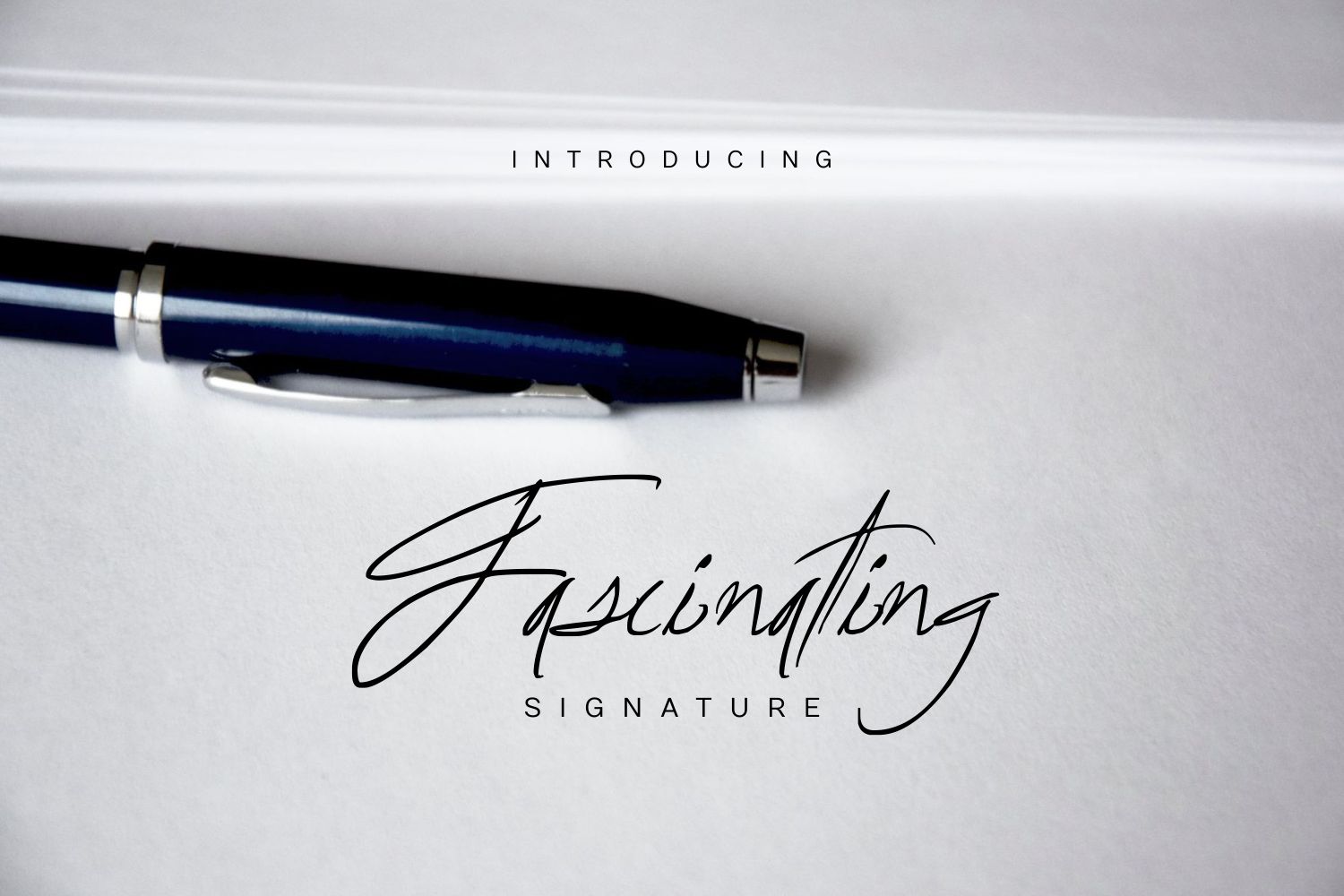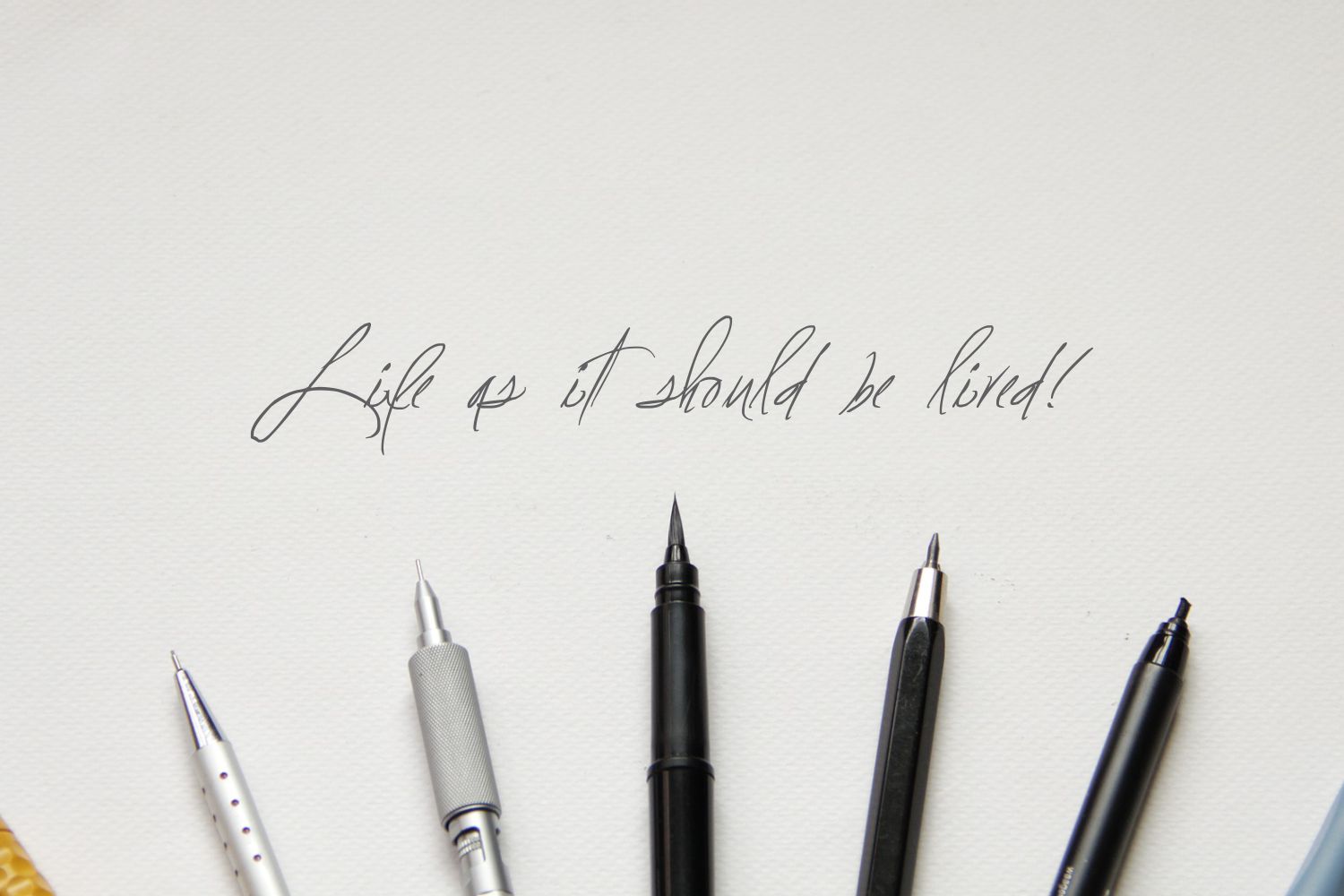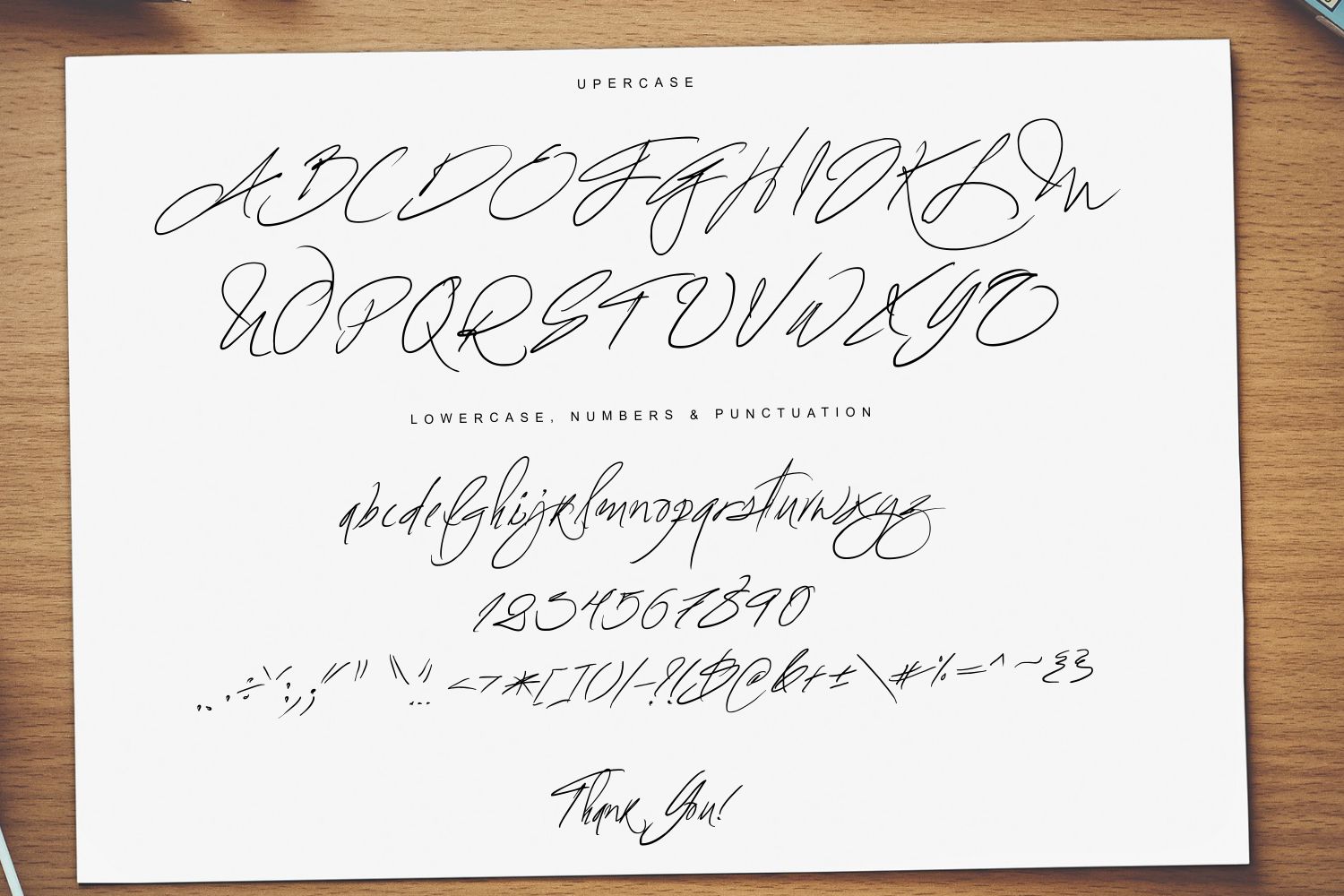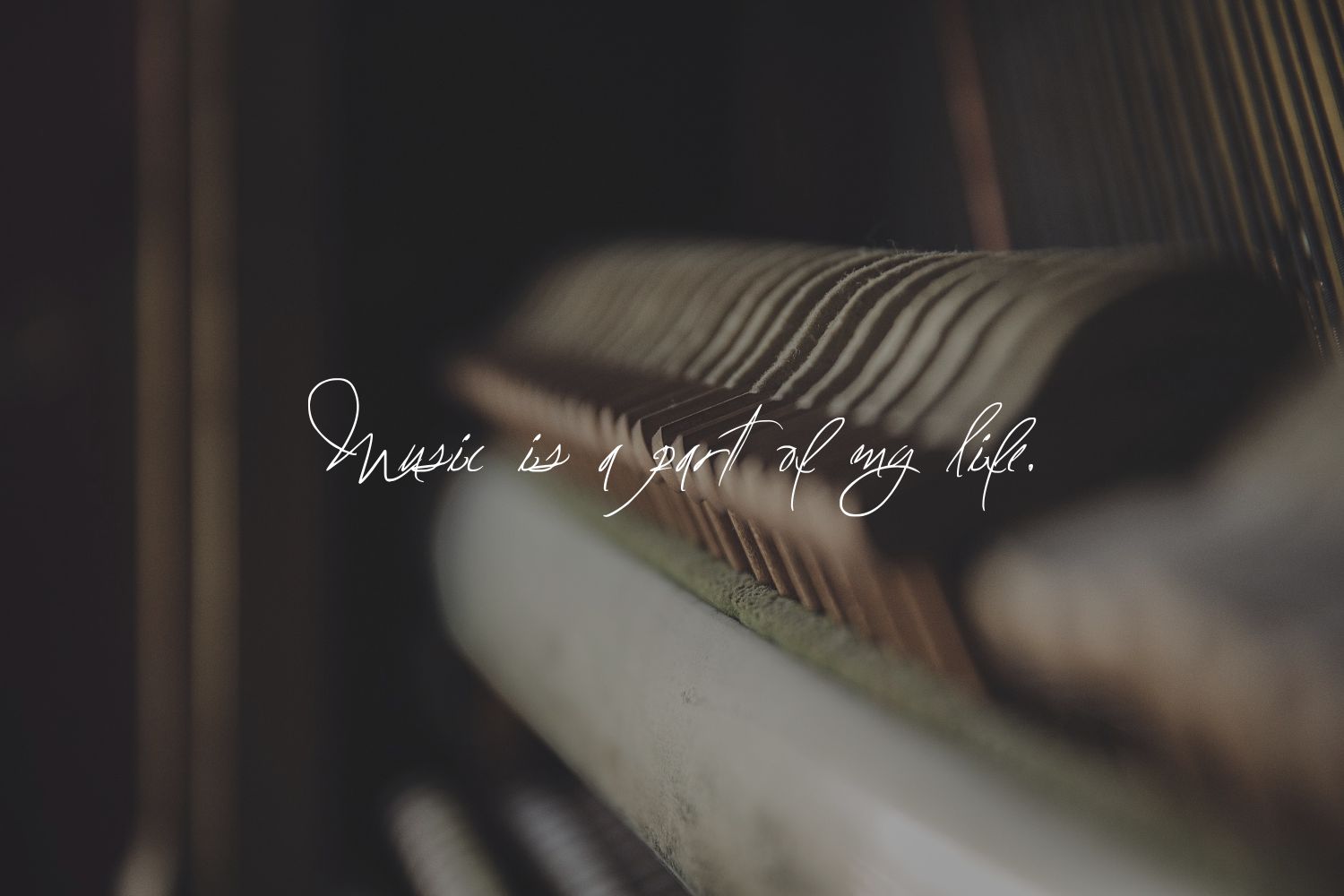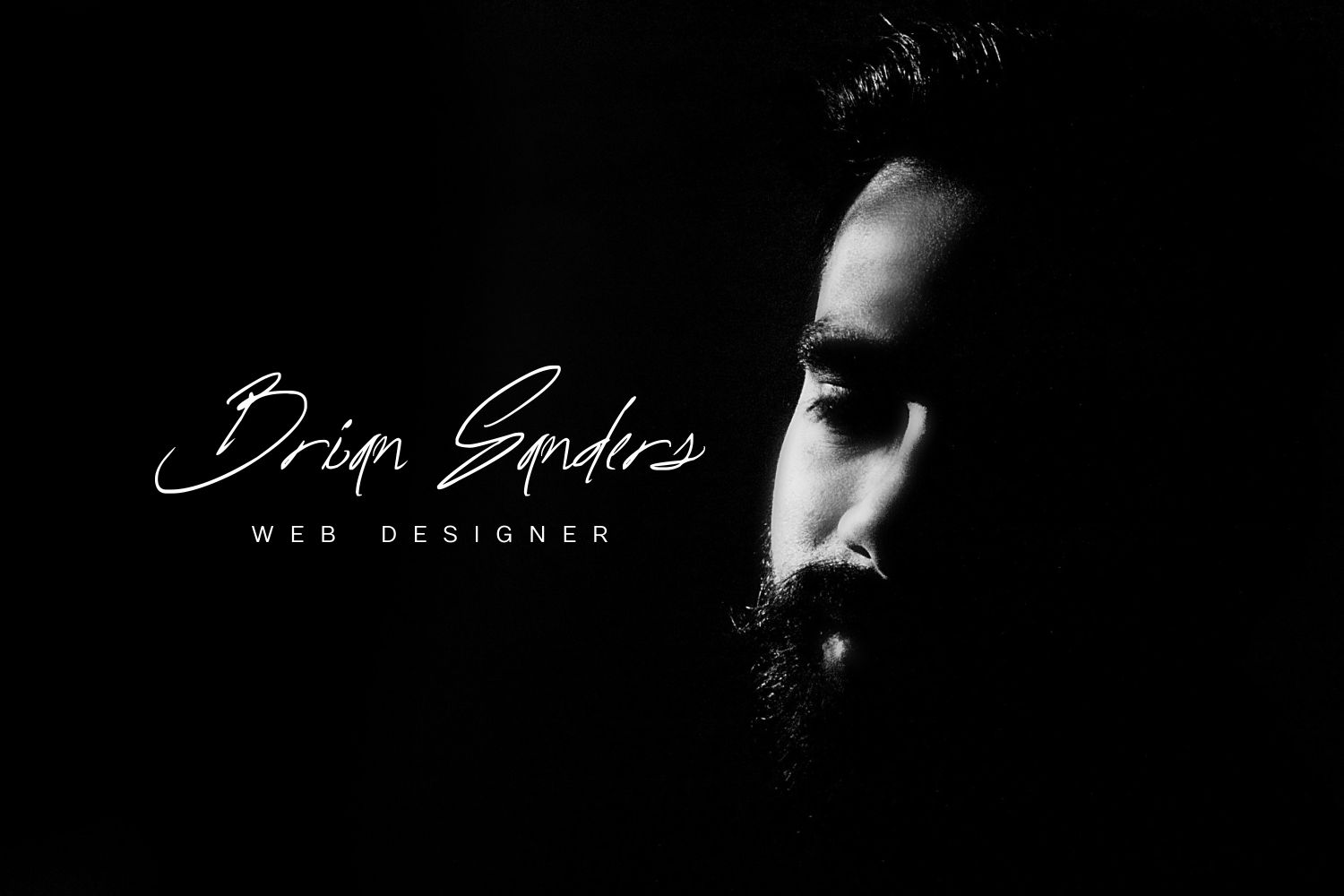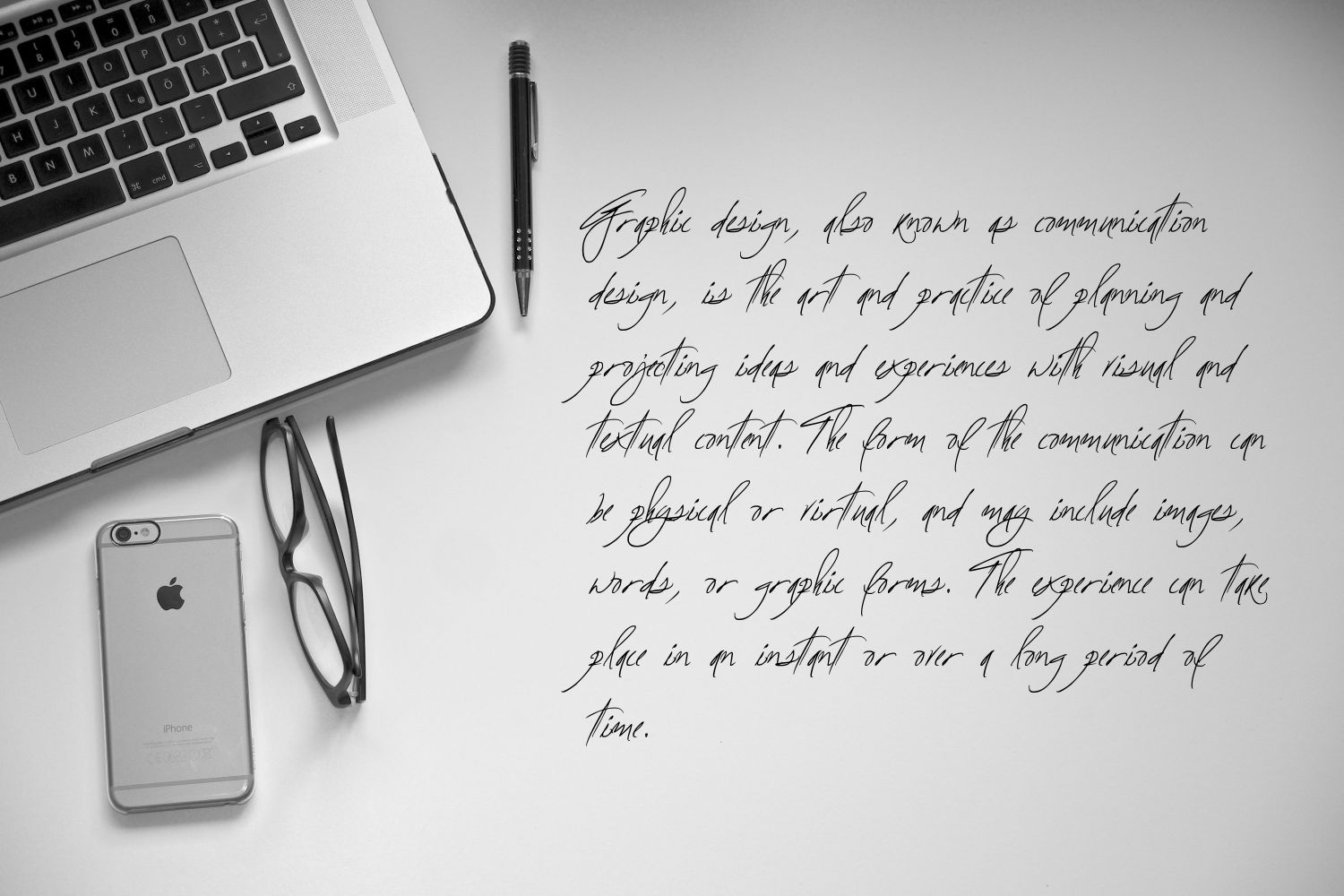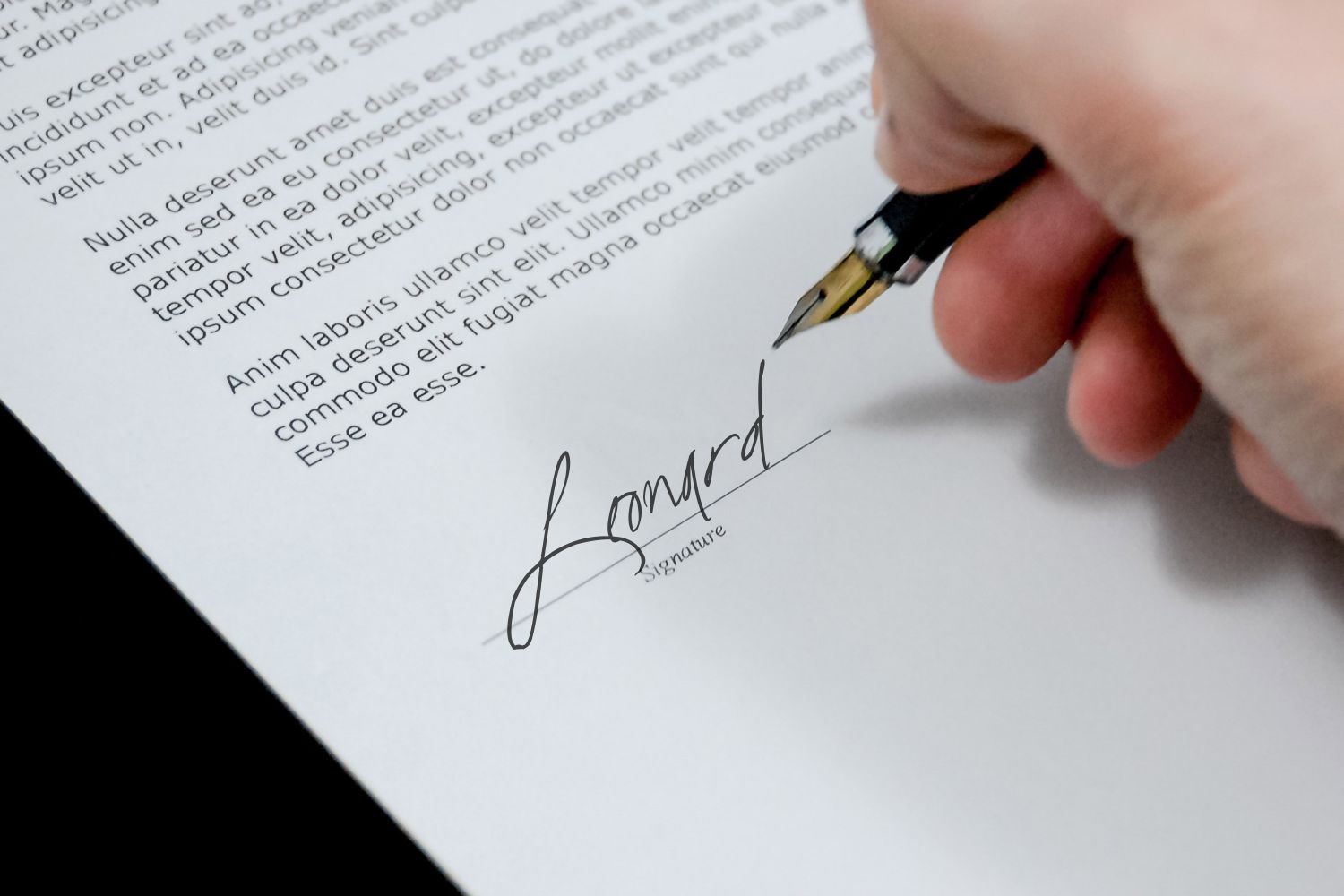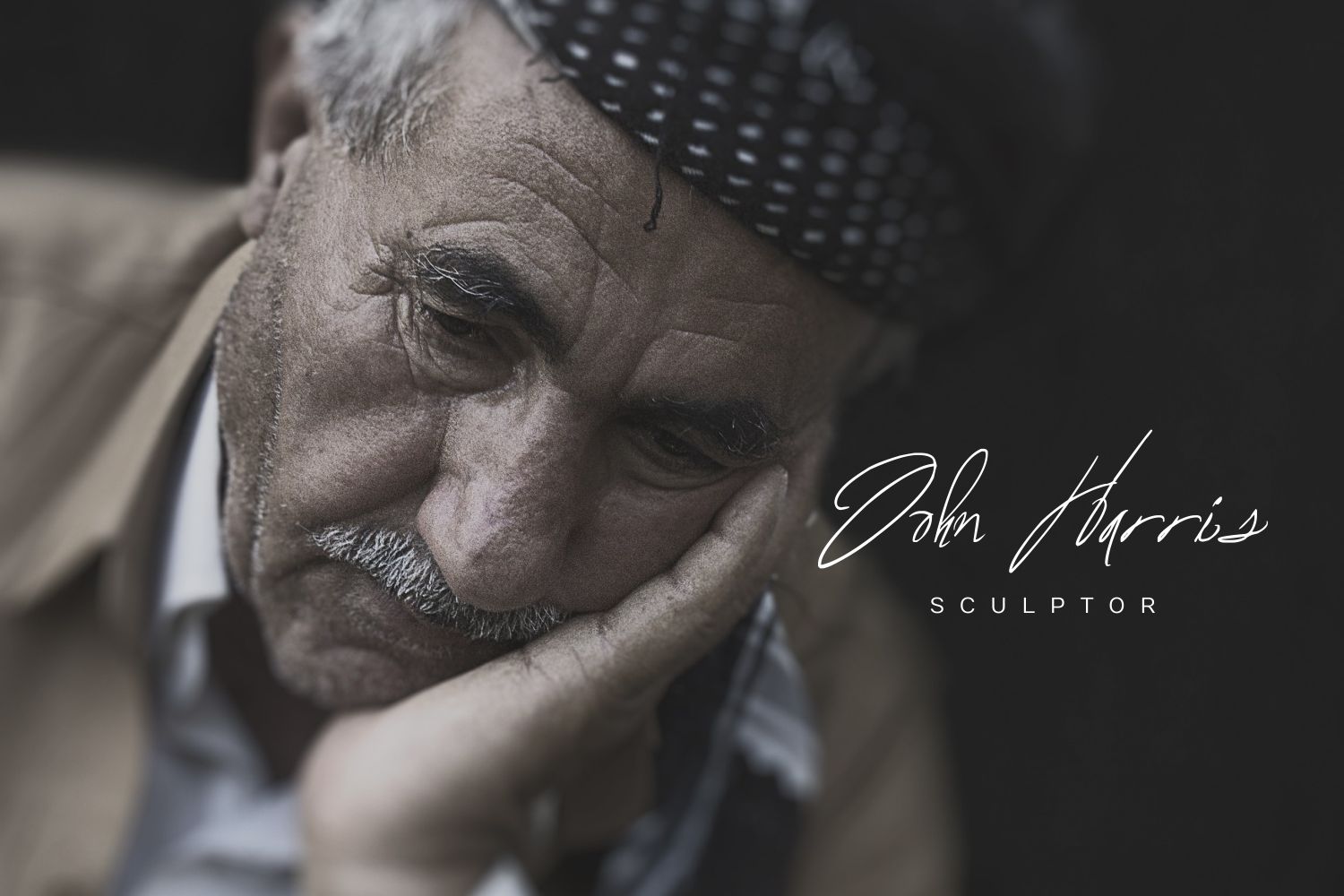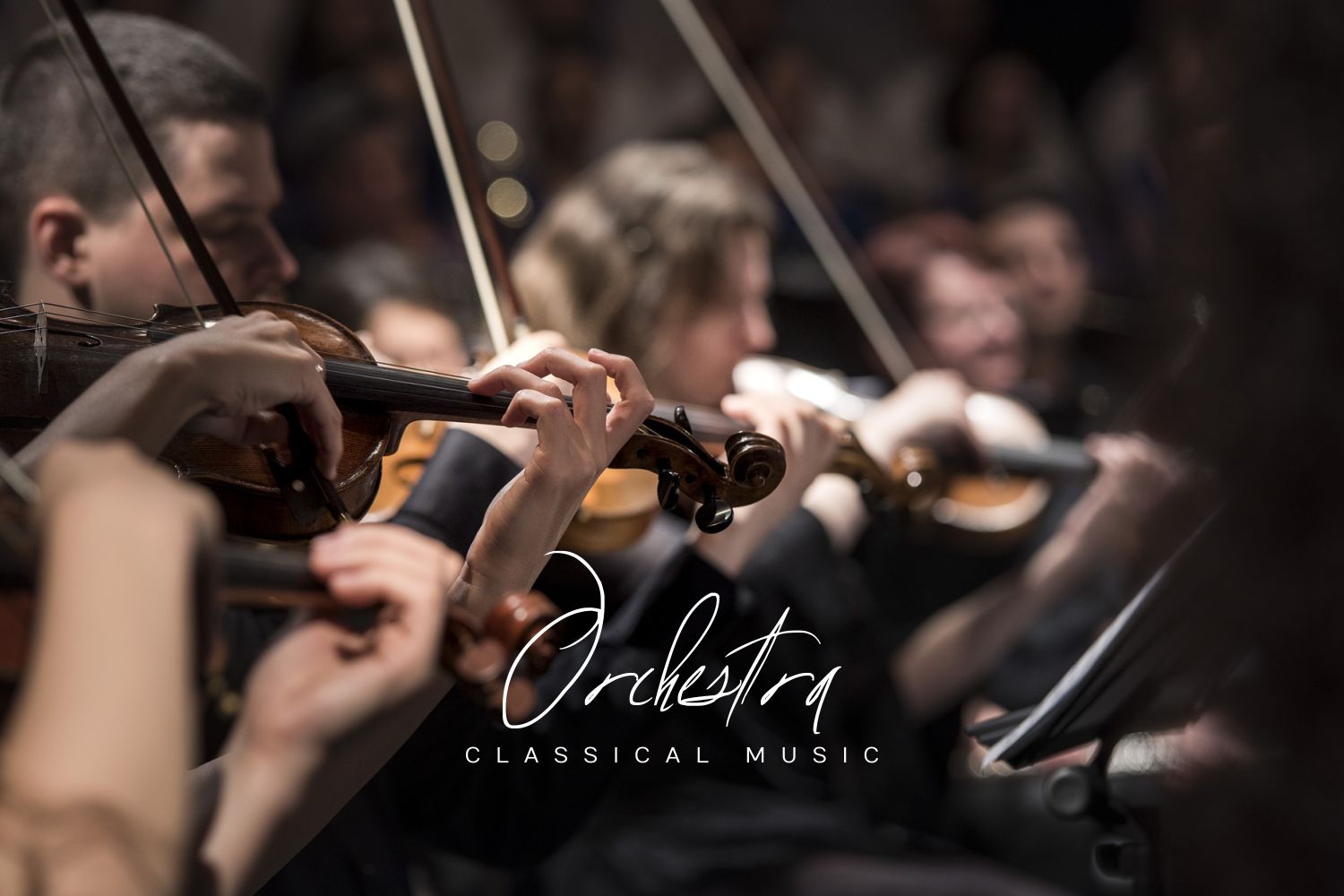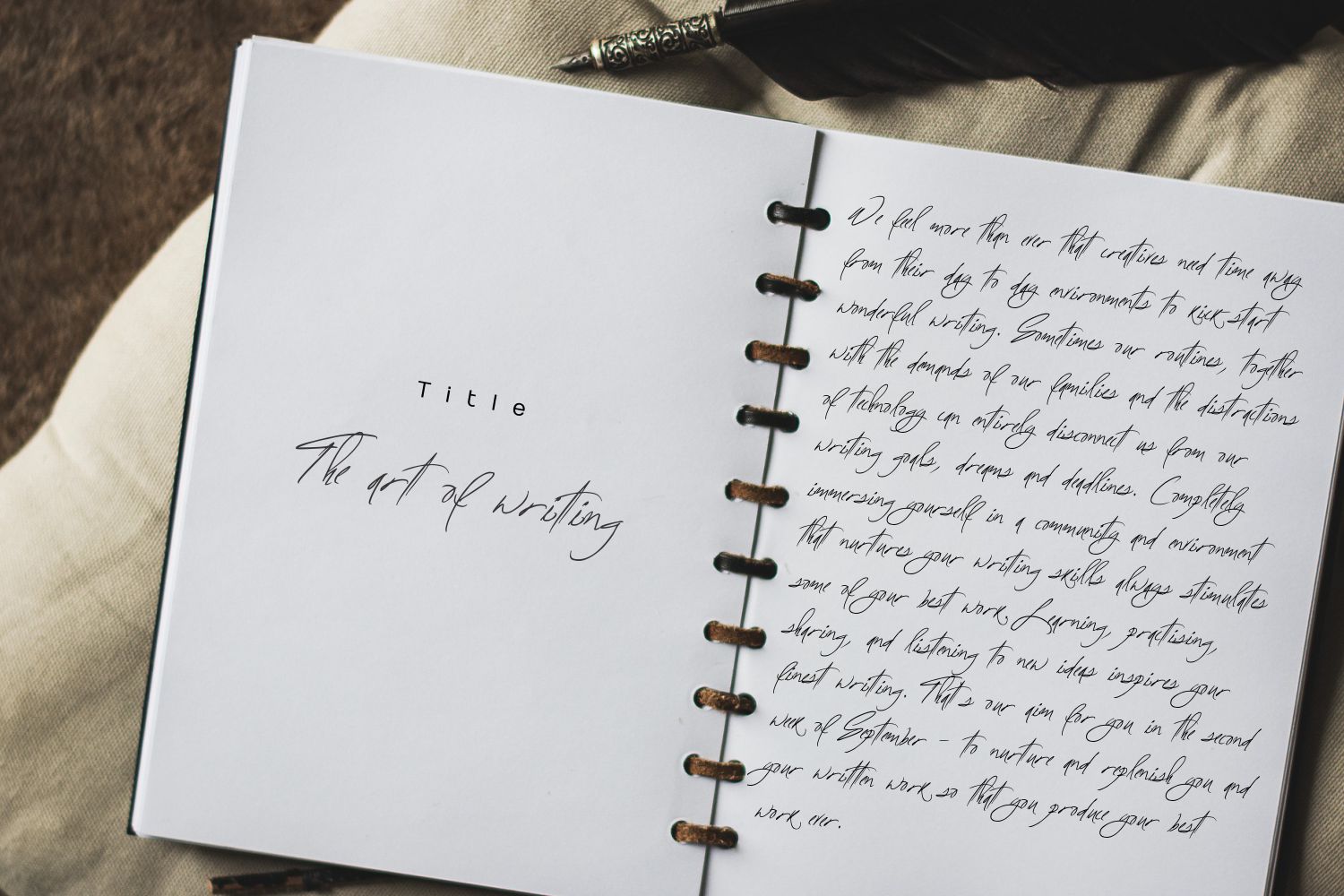
Fascinating Signature Font
About Fascinating Signature Font
Fascinating Signature is an angular and handwritten script font, suitable for a large range of design projects. Perfect for display options and more; this font has endless possibilities.